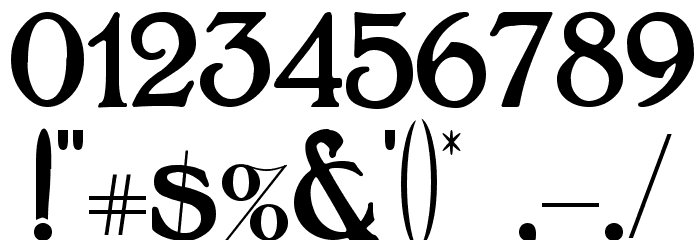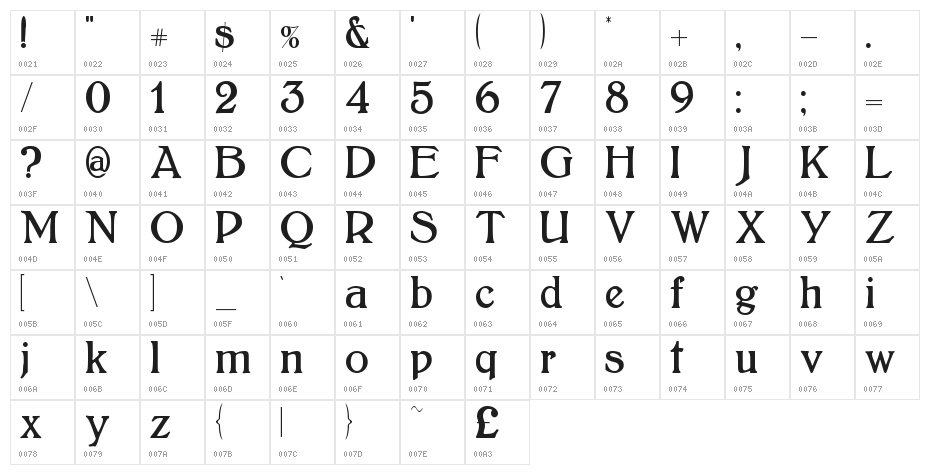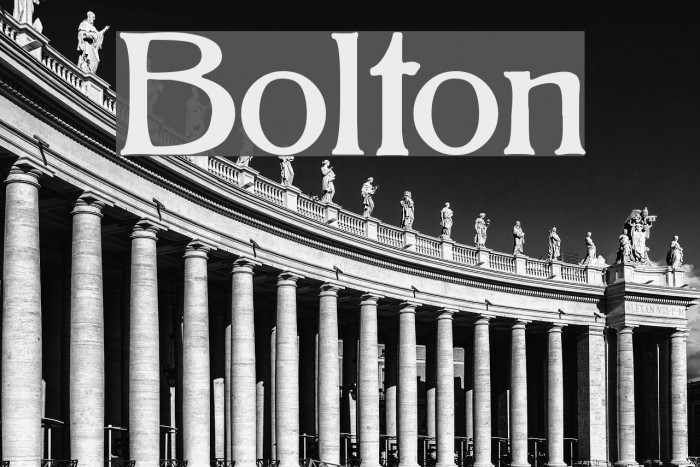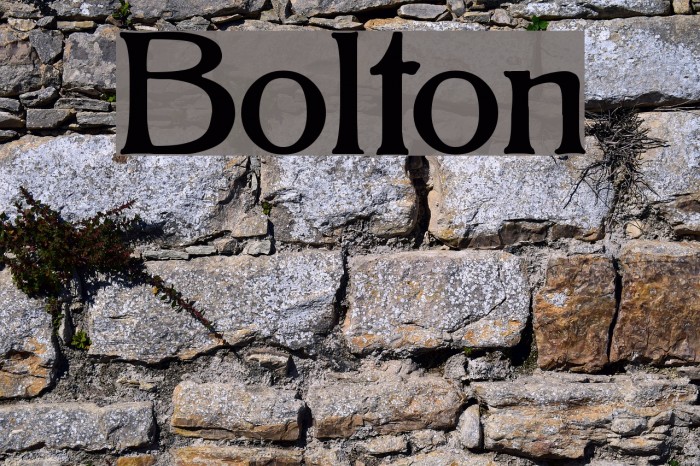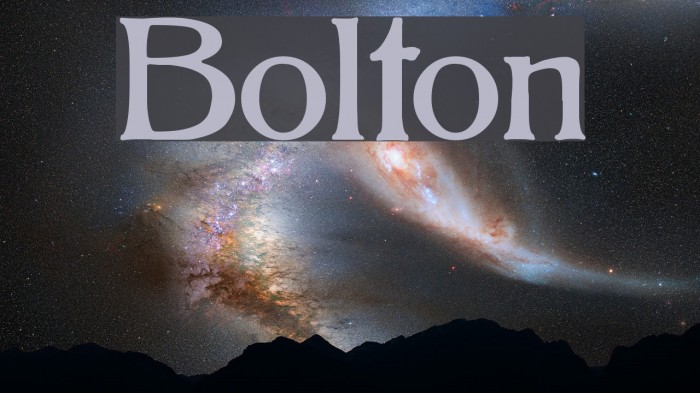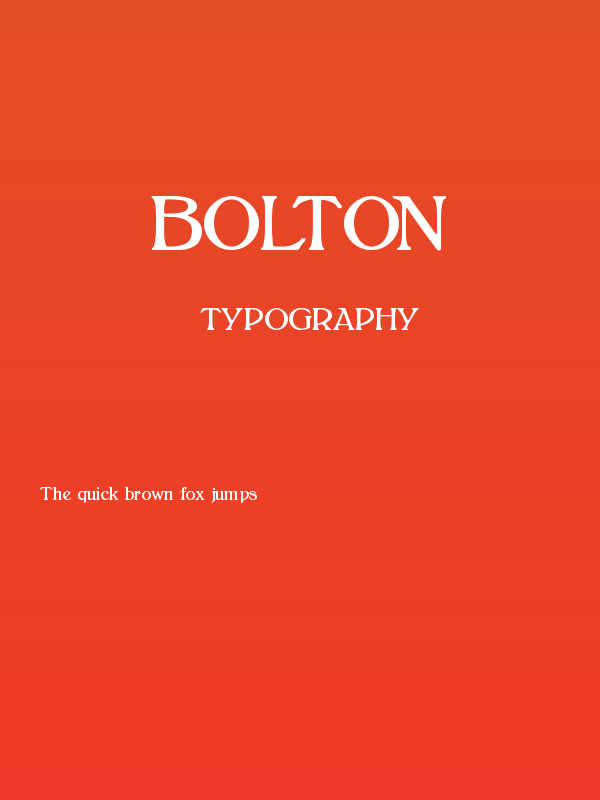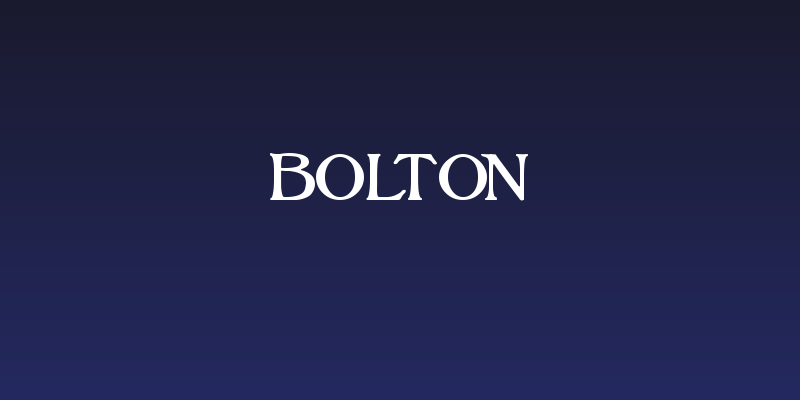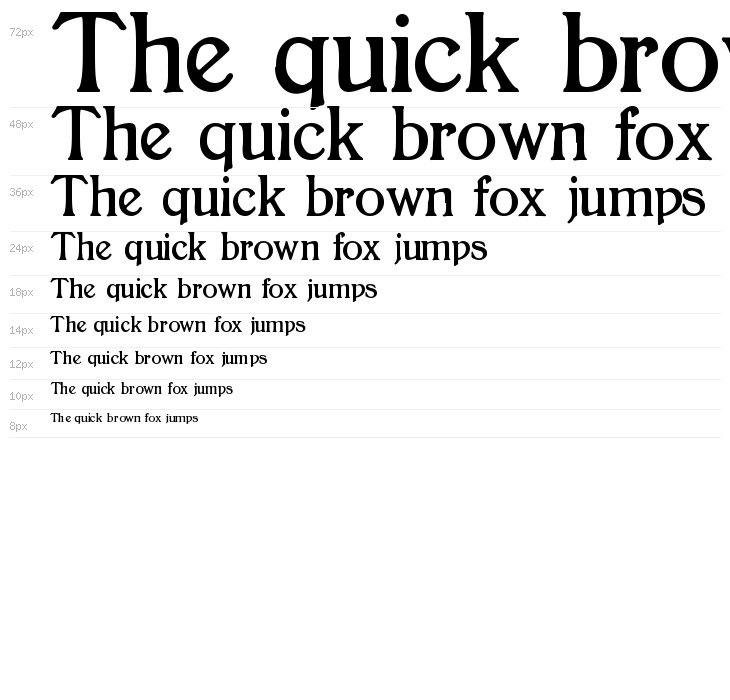
Bolton Font
Bolton Description
This font features a distinctive and bold serif style with a strong presence. The uppercase letters are characterized by sharp, angular serifs and a slightly condensed form, giving them a commanding appearance. The lowercase letters maintain a consistent style with the uppercase, featuring similar angular serifs and a balanced weight. The numerals are bold and clear, ensuring readability. Special characters are designed to match the overall aesthetic, with unique and artistic interpretations of common symbols. This font's design is both classic and modern, making it versatile for various applications.
| Proposed Projects | Ideal for branding, editorial design, book covers, and advertising materials where a strong, classic presence is desired. |